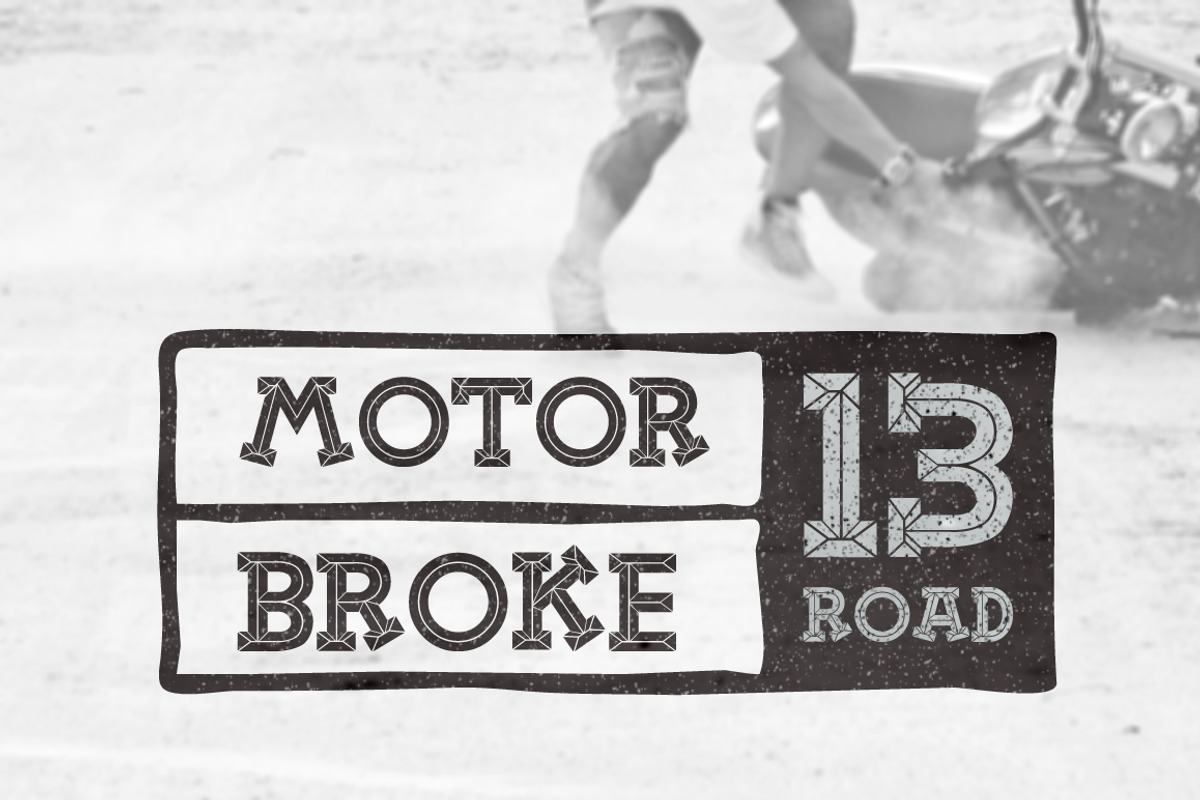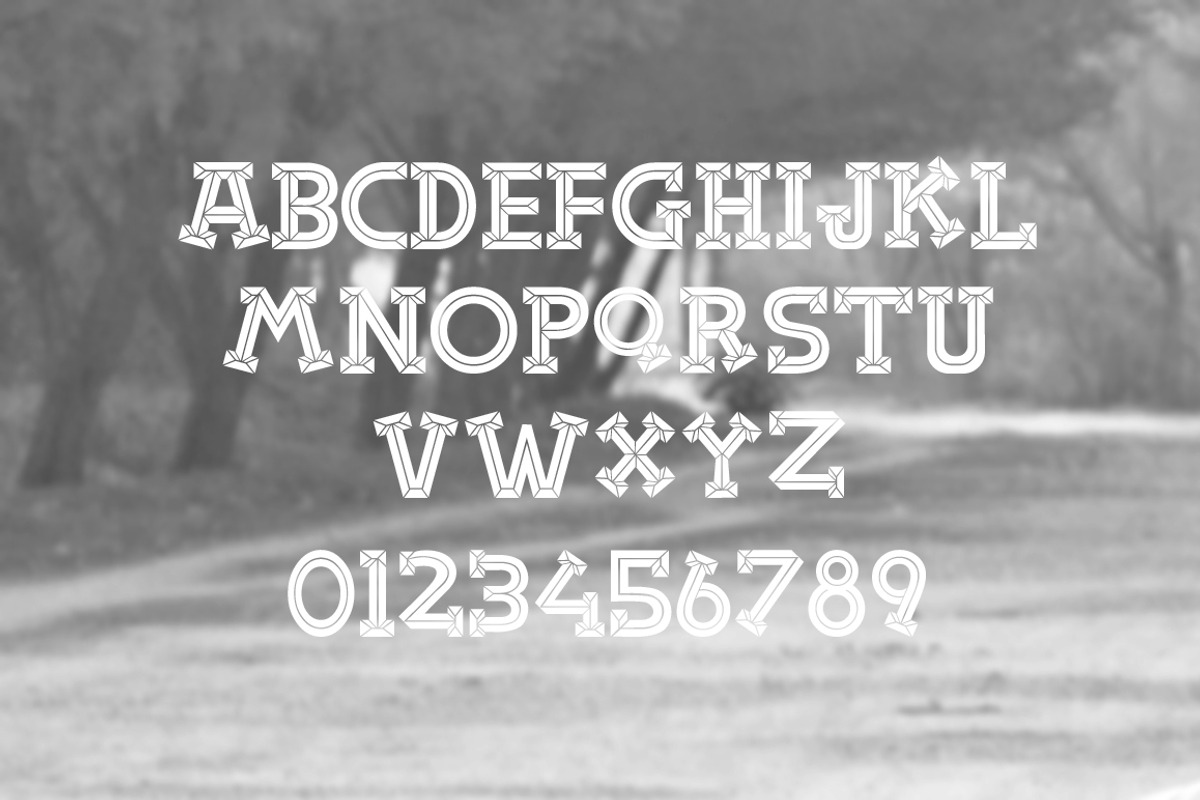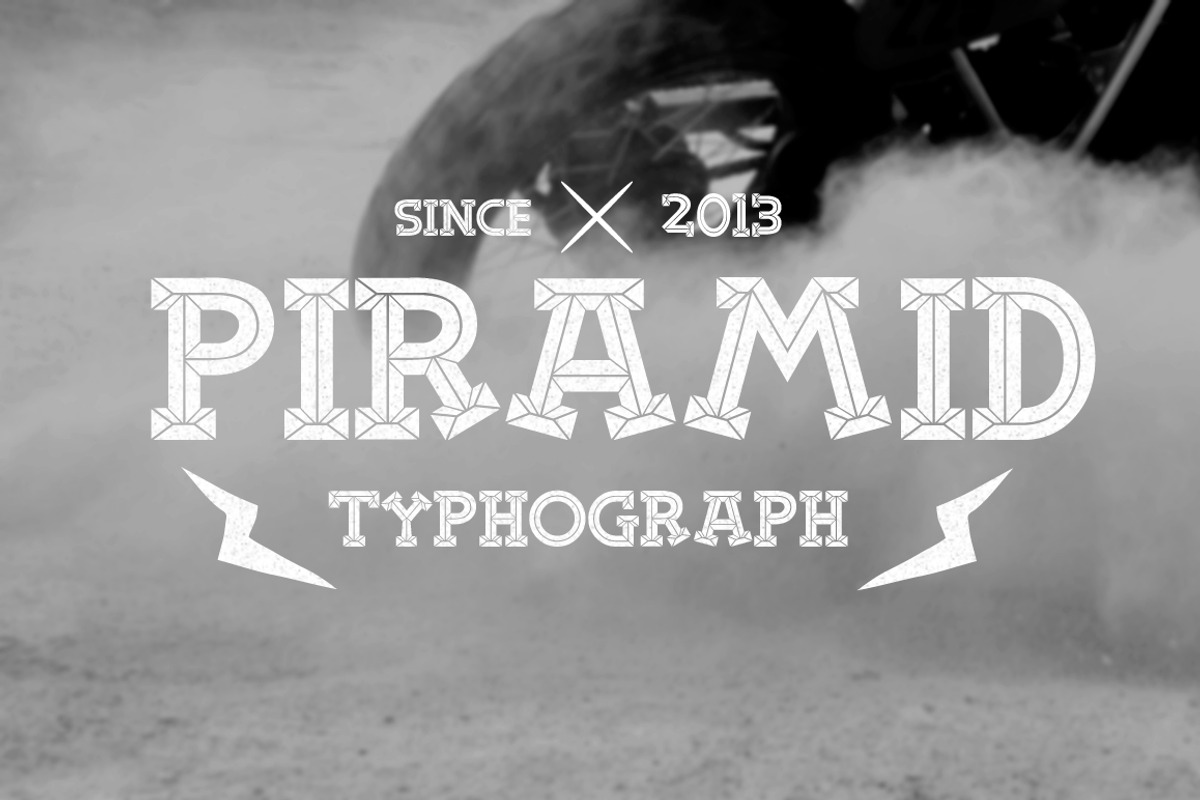
Piramid Font
Piramid Font by alit design is a font selected for branding, posters, packaging, typography.
Why Piramid Font is worth a look
Piramid Font by alit design fits naturally into Branding, posters, packaging, typography.